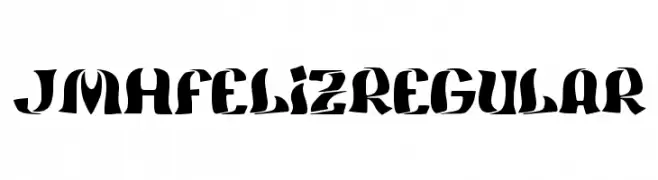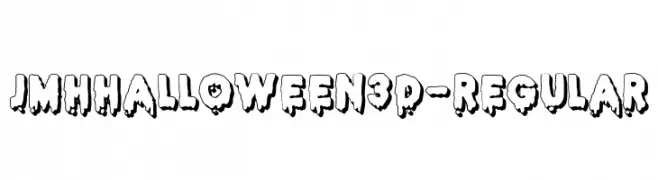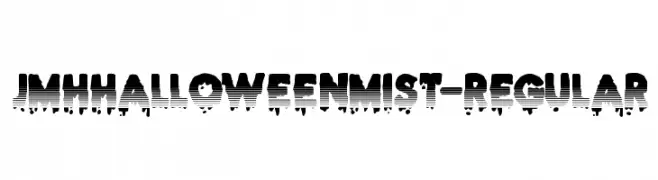
A bold, geometric sans-serif font with strong, clean lines.
An elegant, flowing script font with a natural handwriting style.
An elegant, condensed font with tall, slender characters and delicate curves.
A playful, informal handwritten font with irregular strokes and a lively feel.
A bold, distressed font with a vintage, rugged texture.
A bold, distressed font with a grunge texture and rugged appearance.
Decorative display font with integrated portrait illustrations in each letter.
A playful and whimsical font with bold strokes and decorative elements.
A bold, geometric font with a futuristic and modern design.
An artistic, italicized font with flowing, dynamic letterforms.
A bold, angular font inspired by ancient runic alphabets.
A playful, hand-drawn font with whimsical details and a bold, cartoonish style.
A playful, handwritten script font with decorative curls and flowing lines.
A geometric, modern font with clean lines and sharp angles.
A playful, hand-drawn font with thin, elongated characters.
A bold, shadowed font with a modern, decorative style, perfect for impactful headlines.
A bold, geometric font with thick strokes and a distinct outline.
A jagged, distressed font with a spooky, horror-themed aesthetic.
A graceful script font with flowing, handwritten strokes and elegant curves.
An elegant script font with flowing, interconnected letters and graceful flourishes.
A playful, handwritten font with thin, irregular strokes and a casual feel.
A bold, hand-drawn font with a playful, brush-like texture.